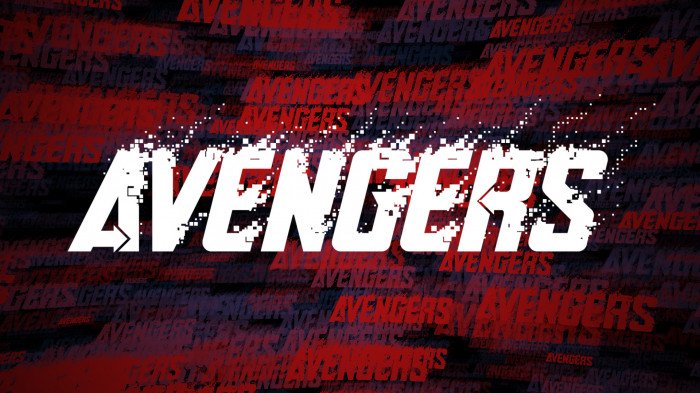
I don't feel so good...
Hah, that's halarious, also a pretty nice font!
thanos snap was so powerful it even turned your font into dust. lol
Mr. Meek, I don't feel so good...
with some arrowws